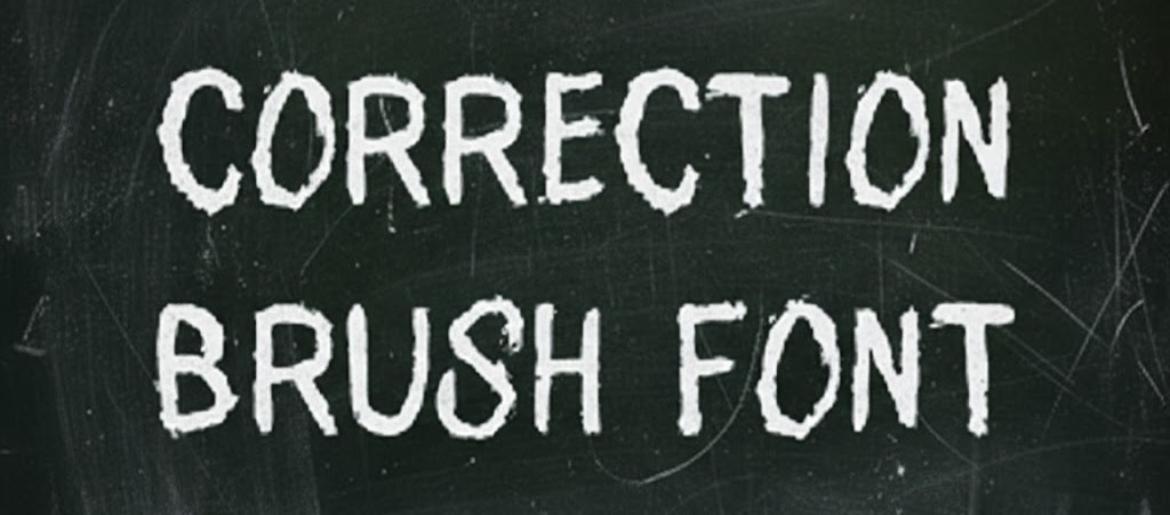
Correction Brush Font
Correction Brush is a raw, hand-painted brush typeface by GGBot that channels the bold defiance of urban street art and guerrilla lettering. Every letterform carries the texture and weight of a real brush loaded with paint — uneven, honest, and full of gritty energy that no digital tool can replicate. Released under the SIL Open Font License, it’s an ideal choice for grunge-inspired posters, gritty event graphics, streetwear design, bold branding, protest art, and any project that draws power from the rebellious beauty of the streets. Supports an impressive 100 languages.